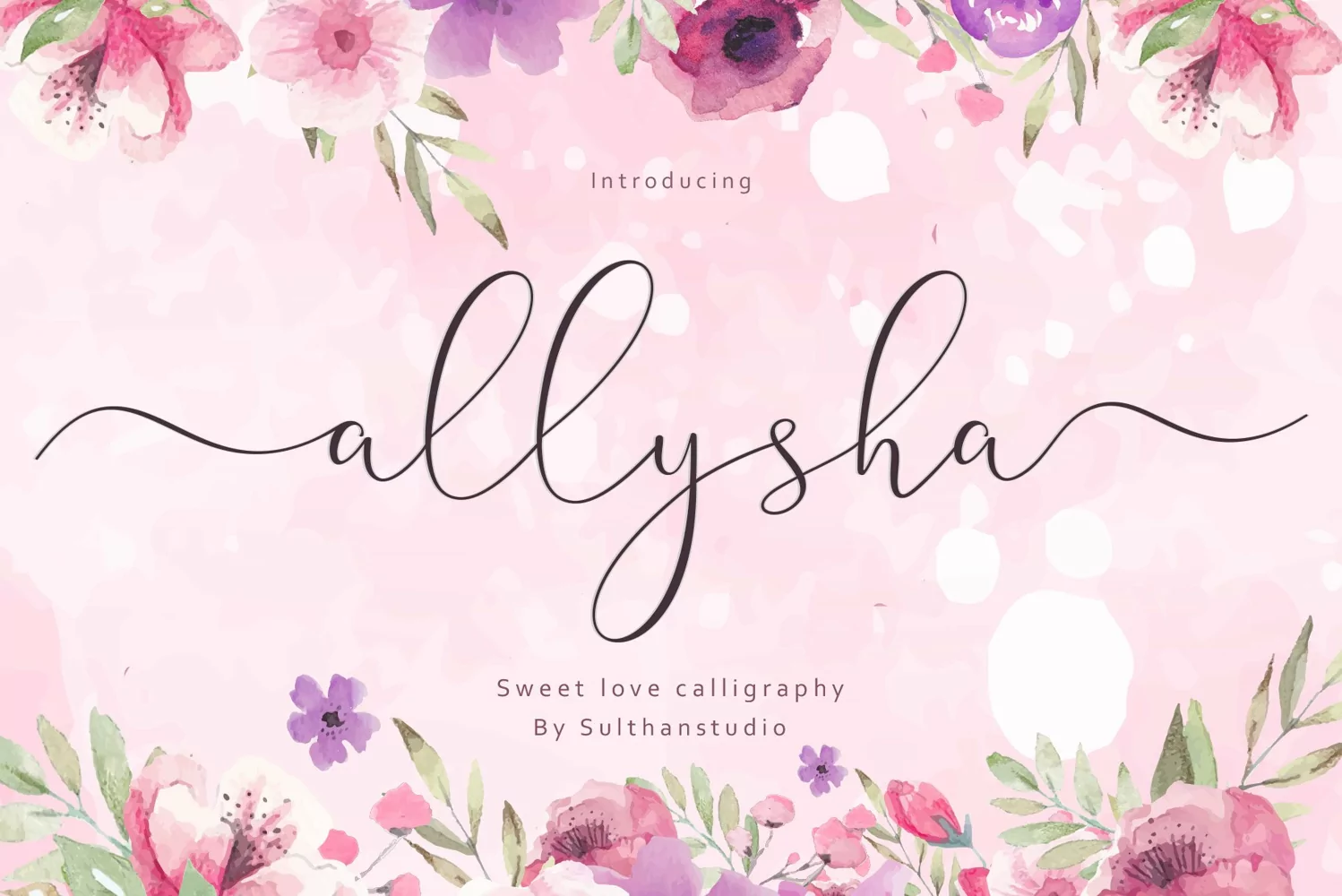
allysha script
allysha script is a handmade font with passion and love, I love my work and the people who support me, make me inspired to always make it with my heart.
This allysha script is very elegant with many styles, and with smooth and soft lines not much stained, equipped with upper and lower case letters, and alternative lowercase letters, swash, multilingual symbols, numbers, punctuation.
Perfect for many design projects such as logo design, branding, blog graphics, stylish quotes, wedding stationery, art prints, collateral design, packaging, social media, and so on. I really enjoyed it with heart and love in the process of making this font collection and I hope that there will be amazing works for every work you do with this font.